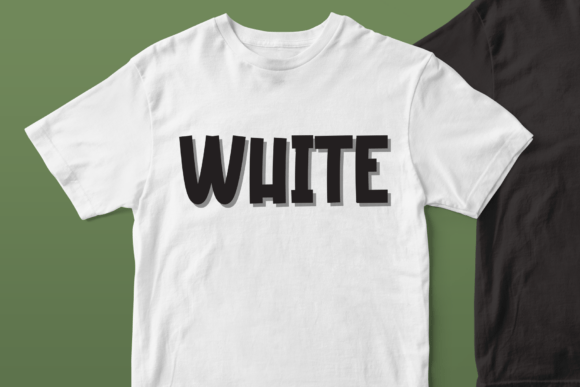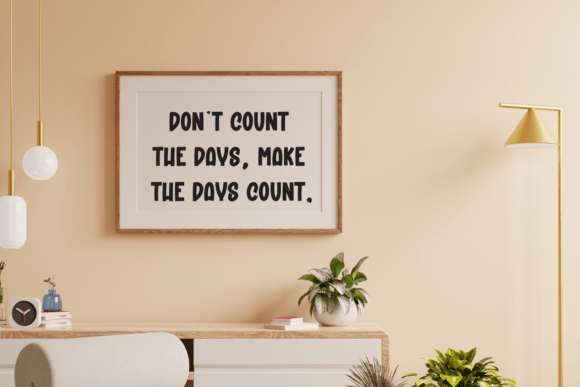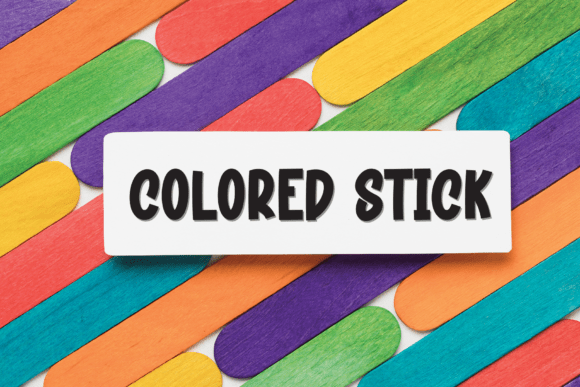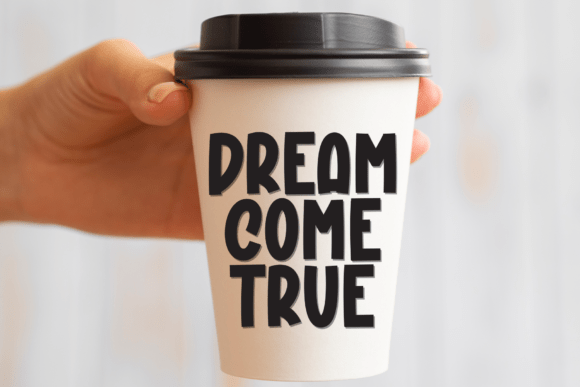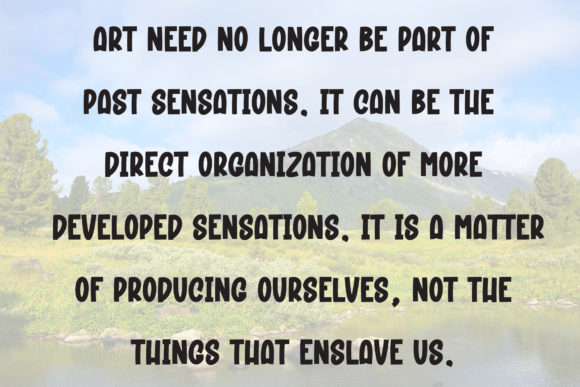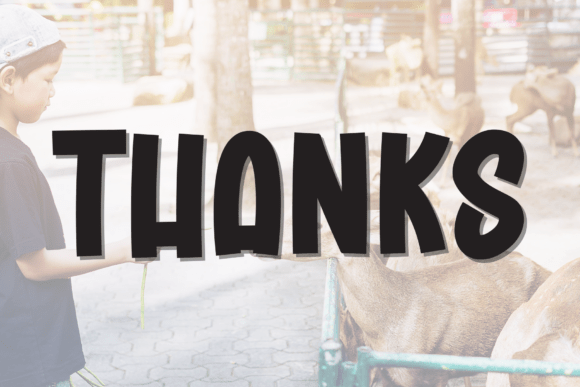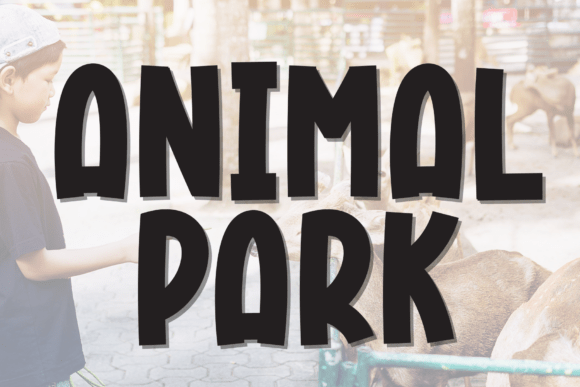
Discover the Charm of Animal Park Font: A Sweet and Whimsical Design Gem
As a designer, I’ve had my fair share of moments where I’ve struggled to find the perfect font for a project. I recall working on a wedding invitation design, wanting something that would capture the playful and romantic essence of the couple’s special day. After scouring through countless font libraries, I stumbled upon Animal Park Font, and it instantly stole my heart! In this article, I’ll share my experience with this delightful handwritten display font, its features, and how to make the most of it in your designs.
- ✅ Sweet and Whimsical Design: Animal Park Font embodies a charmingly delightful handwritten style that adds a playful touch to any design.
- ✅ Fully Functional: This font is not just cute; it’s also fully functional, making it perfect for a wide range of design applications.
- ✅ Easy to Read: Despite its whimsical nature, the font remains clear and easy to read, even at smaller sizes.
- ✅ Versatile: Suitable for various design projects, from wedding invitations and greeting cards to social media graphics and more.
While Animal Park Font is a delightful design gem, there are a few things to consider:
- 🤔 Limited Use in Formal Designs: Due to its playful nature, this font might not be the best choice for formal or professional designs that require a more serious tone.
- 🤔 Glyph Limitations: As with any font, some glyphs or special characters might be limited or require additional installation.
The Story Behind Animal Park Font
Animal Park Font was designed with the intention of creating a sweet and whimsical font that would bring joy to designers and their clients. The designer aimed to craft a font that would be both playful and elegant, perfect for designs that require a touch of personality. Although the actual design process and inspiration might be unknown, it’s clear that the font has been well-received by the design community.
Q: What type of designs is Animal Park Font best suited for?
A: Animal Park Font is perfect for designs that require a playful and whimsical touch, such as wedding invitations, greeting cards, social media graphics, and more.
Q: Does Animal Park Font support OpenType features?
A: Yes, Animal Park Font supports OpenType features, allowing you to access additional glyphs, stylistic alternates, and more.